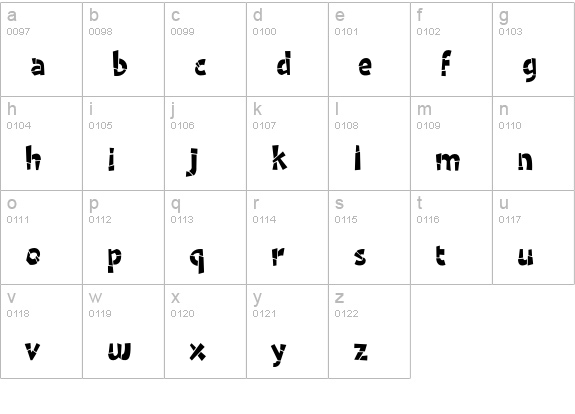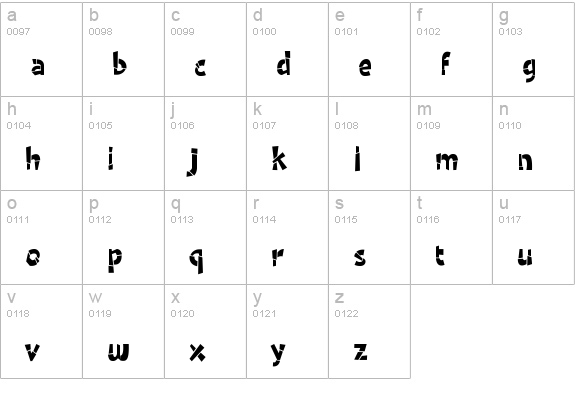
Tantrum Font Details
Introducing Tantrum, a bold and expressive font that captures the essence of unbridled emotion. With its strong and jagged letterforms, this typeface exudes a raw and untamed energy, perfect for making a statement in your design projects. Tantrum is the embodiment of passion and intensity, designed to leave a lasting impression on any viewer. Its sharp edges and dynamic strokes create a sense of movement and urgency, making it an ideal choice for projects that demand attention and provoke strong emotions. This versatile font can be used in a variety of contexts, from eye-catching headlines to striking logos, from impactful posters to edgy social media graphics. Its unique character set adds a touch of rebellion and rebellion to any project, setting it apart from the ordinary and mundane. What's more, Tantrum is not only visually captivating, but it is also freely available to download at FontsMarket.com. This means that you can unleash the power of this font without any cost or restrictions, allowing you to freely express your creativity and make a bold statement. Whether you're a graphic designer looking to add a touch of attitude to your next project or a content creator aiming to captivate your audience, Tantrum is the perfect font to help you stand out from the crowd. Download it today at FontsMarket.com and let your designs unleash their full potential with this free and impactful typeface.